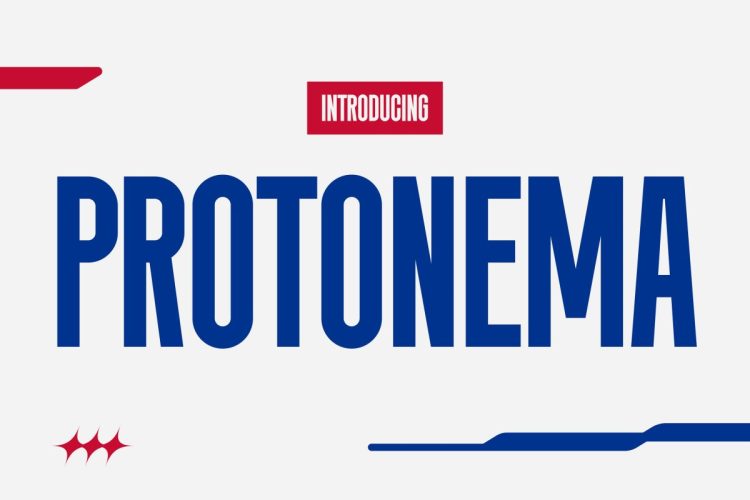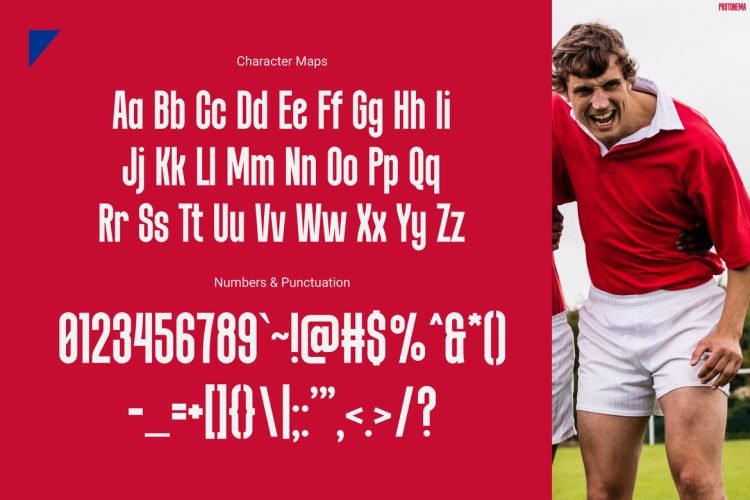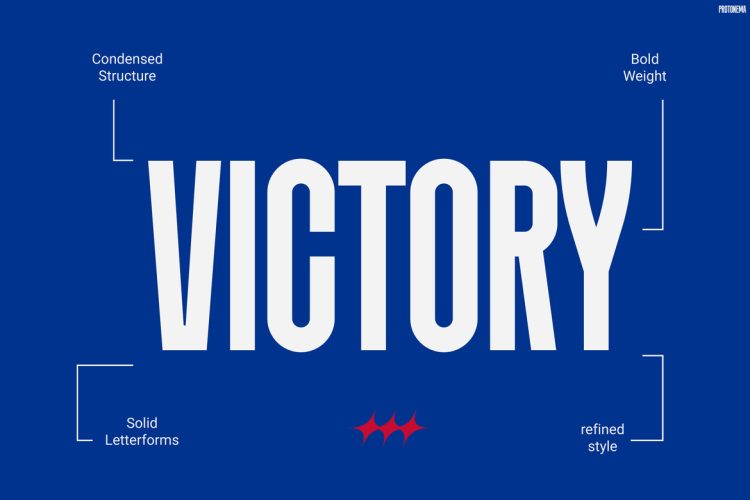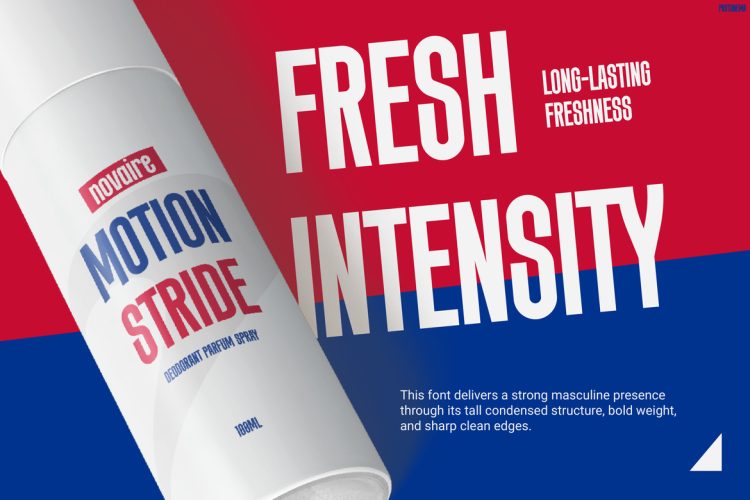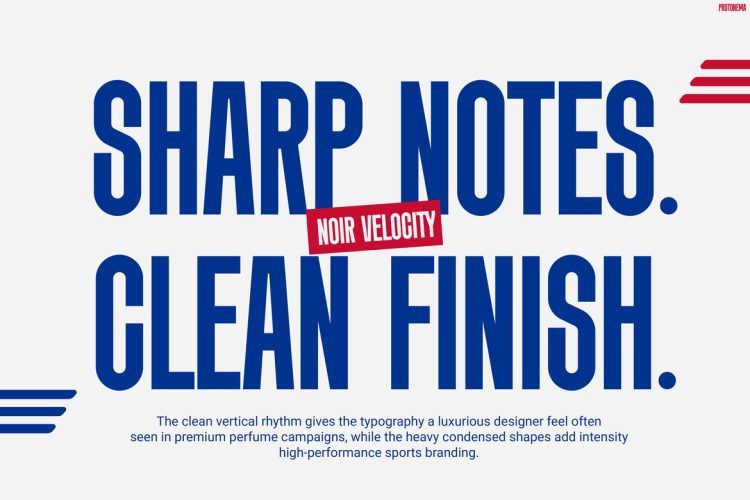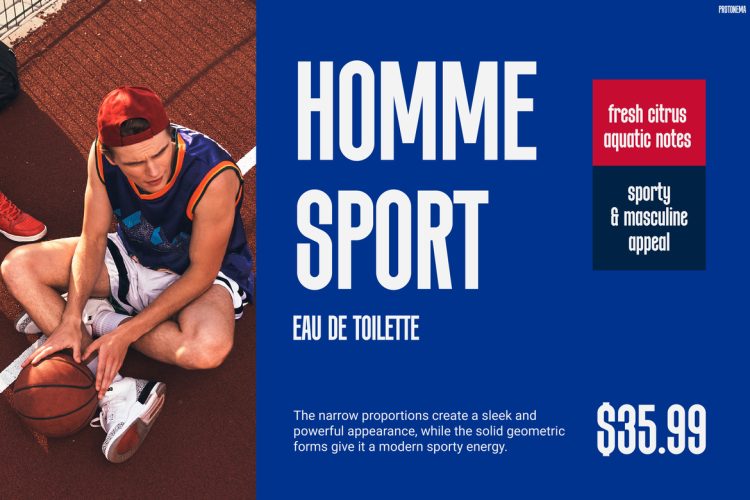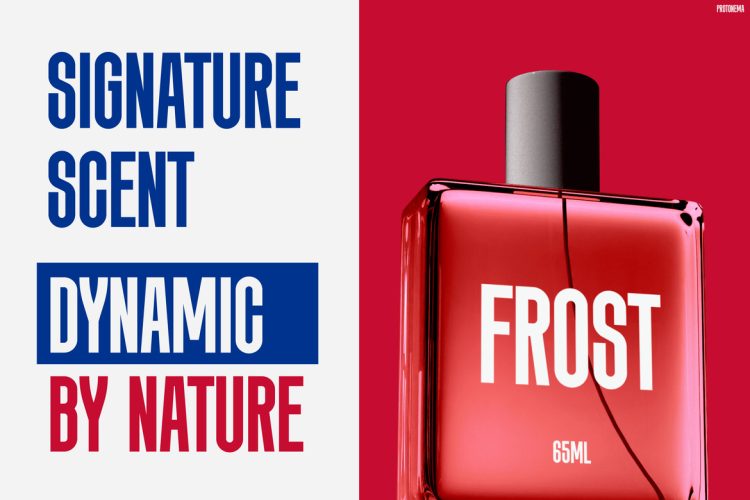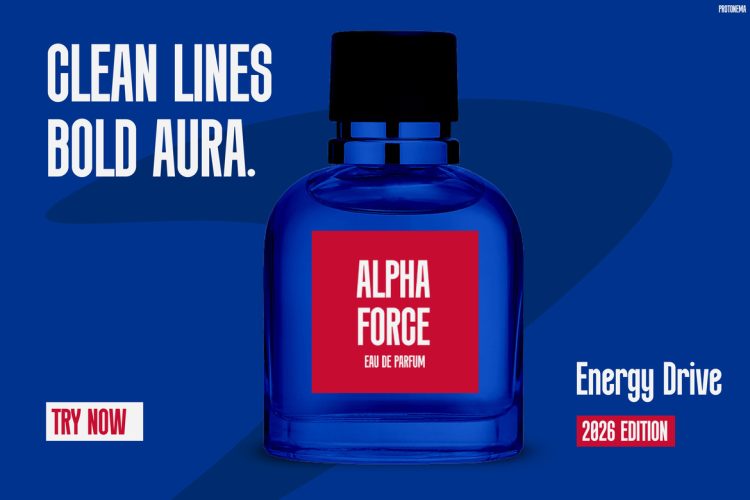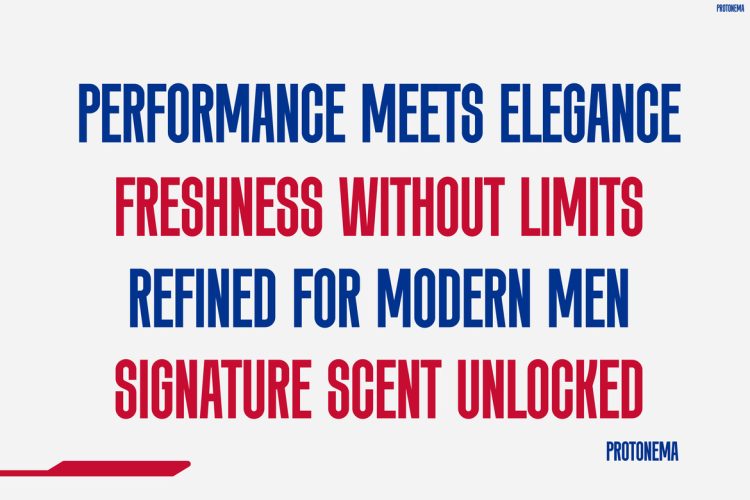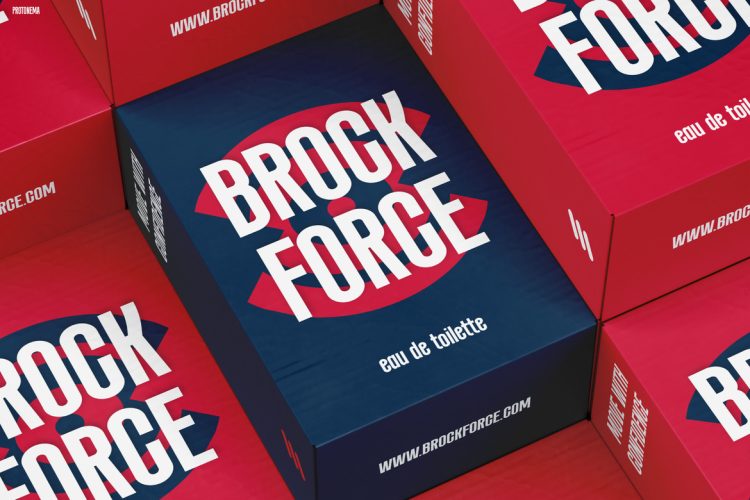
Instagram Font Protonema โ Powerful Style That Instantly Stands Out
Instagram Font Protonema delivers a bold sporty aesthetic with tall condensed characters, sharp edges, and clean modern structures. Furthermore, the font creates a strong visual rhythm that immediately captures attention in both digital and print designs. Because of its sleek geometry and athletic personality, Protonema feels energetic, premium, and highly professional at the same time. In addition, the balanced spacing and powerful letterforms make headlines look cleaner, sharper, and easier to read. As a result, every design appears more modern, dynamic, and visually striking.
Moreover, Protonema combines futuristic elegance with masculine energy, so it works perfectly for branding that needs confidence and impact. Whether you are creating social media graphics, product packaging, or promotional campaigns, this font helps your visuals feel stronger and more memorable. Therefore, Protonema becomes an excellent choice for designers who want typography that looks bold yet stylish.
Instagram Font Protonema Perfect For Creative Projects
Best Used By:
- Sportswear and fitness brands
- Gym and training promotions
- Perfume and cosmetic packaging
- Instagram content creators
- Esports and gaming designers
- Streetwear fashion labels
- Advertising and branding agencies
- Poster and editorial designers
- YouTube thumbnail creators
Additionally, Instagram Font Protonema adapts beautifully to many creative styles because of its versatile and modern construction. Not only does it perform well in large headlines, but it also maintains clarity in promotional layouts and branding materials. Consequently, designers can build visuals that feel cohesive, premium, and highly competitive.
Make Your Branding Look More Fearless